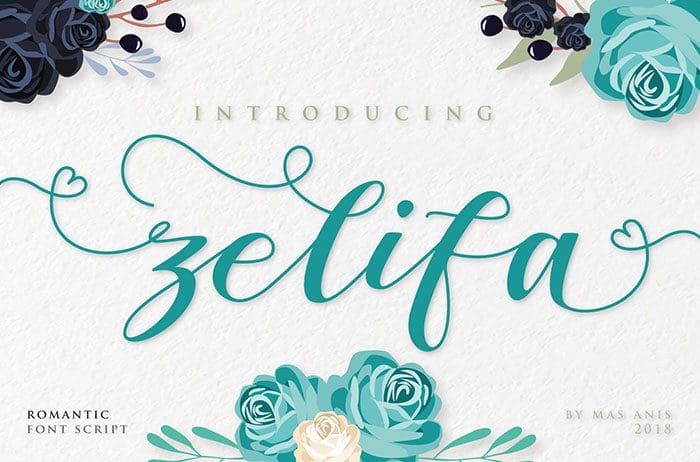
Zelifa Script Font
Free Zelifa Script font is a new fresh, unique & modern script with a handmade calligraphy style and decorative characters. This handwritten cursive script is a unique blend of classic and modern font sensibility, suitable for displays in a vast array of project types. Designed this font by Mas Anis. You can also search more freeĀ Script Fonts.